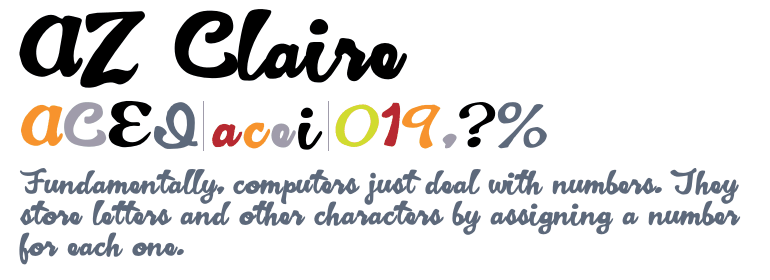
az claire
Explore the Stylish AZ Claire Font for Creative Design
AZ Claire, crafted by the talented designer Alex Z. in 2022, captures a unique blend of modern elegance and readability. This versatile typeface is perfect for a wide range of applications, including web design, print materials, branding, and logo creation. It stands out due to its clean lines and contemporary character shapes, making it an essential tool for designers who want to leave a lasting impression.
Key Features and Formats of AZ Claire Font
The Creative Journey of AZ Claire Font
Rooted in modern typographic principles, AZ Claire was developed to meet the demands of contemporary design aesthetics. Alex Z.’s dedication to precision and creativity shines through in every character, making this font a standout choice for diverse design projects.
Versatile Applications for AZ Claire Font
Whether you are creating a striking website, designing eye-catching flyers, or developing unique branding materials, AZ Claire delivers versatility and style. Its modern flair is perfect for both minimalistic and elaborate designs, enhancing the overall aesthetic appeal of your projects.